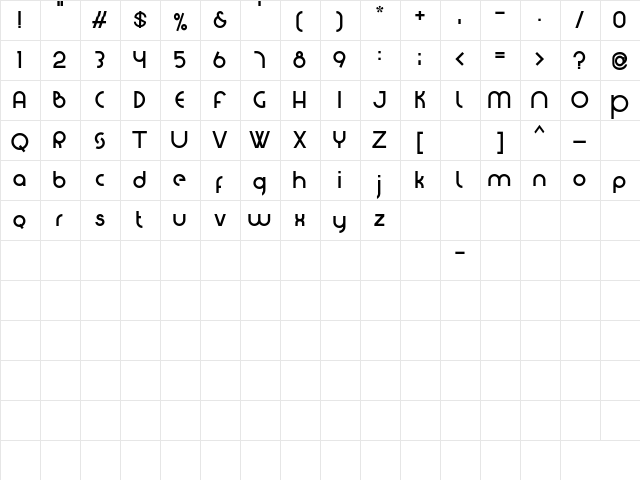
Blanquotey Regular
| Designer | Surya Iswandi |
Design Context for Blanquotey Typeface
Blanquotey is a composed and adaptable typeface that performs quietly and consistently across a wide range of design contexts.